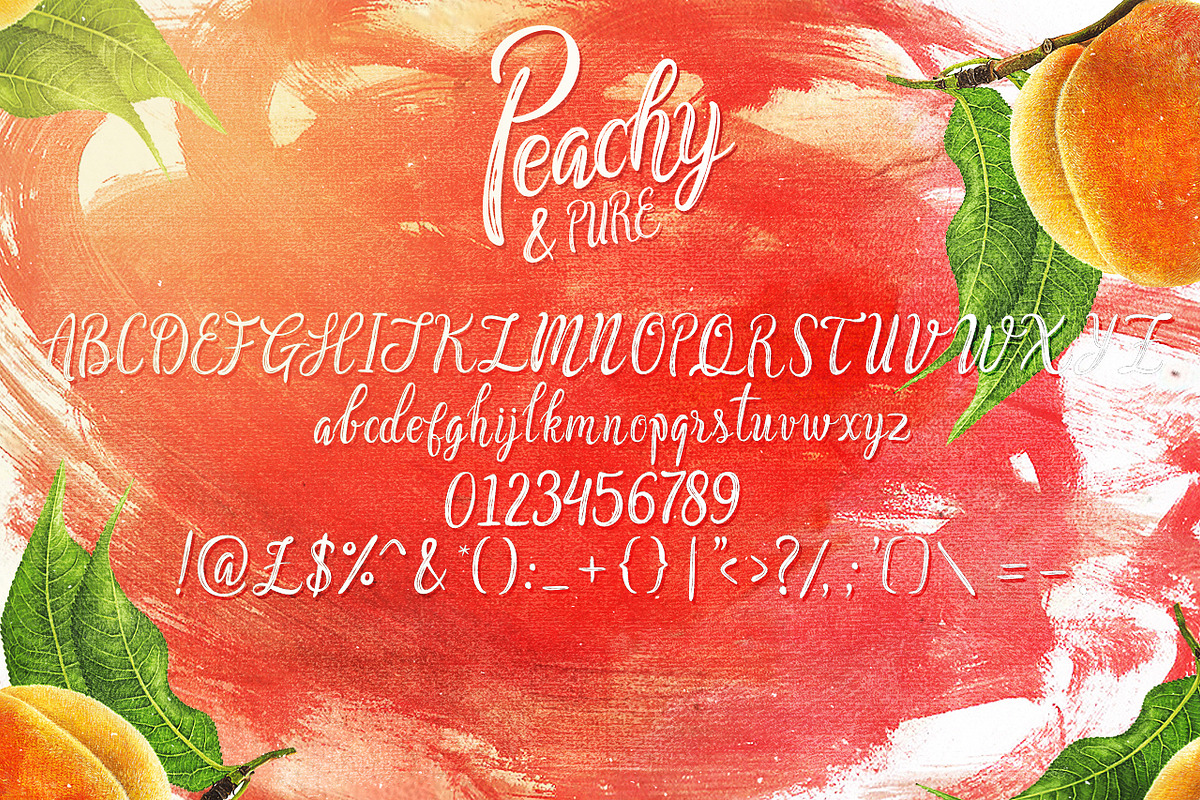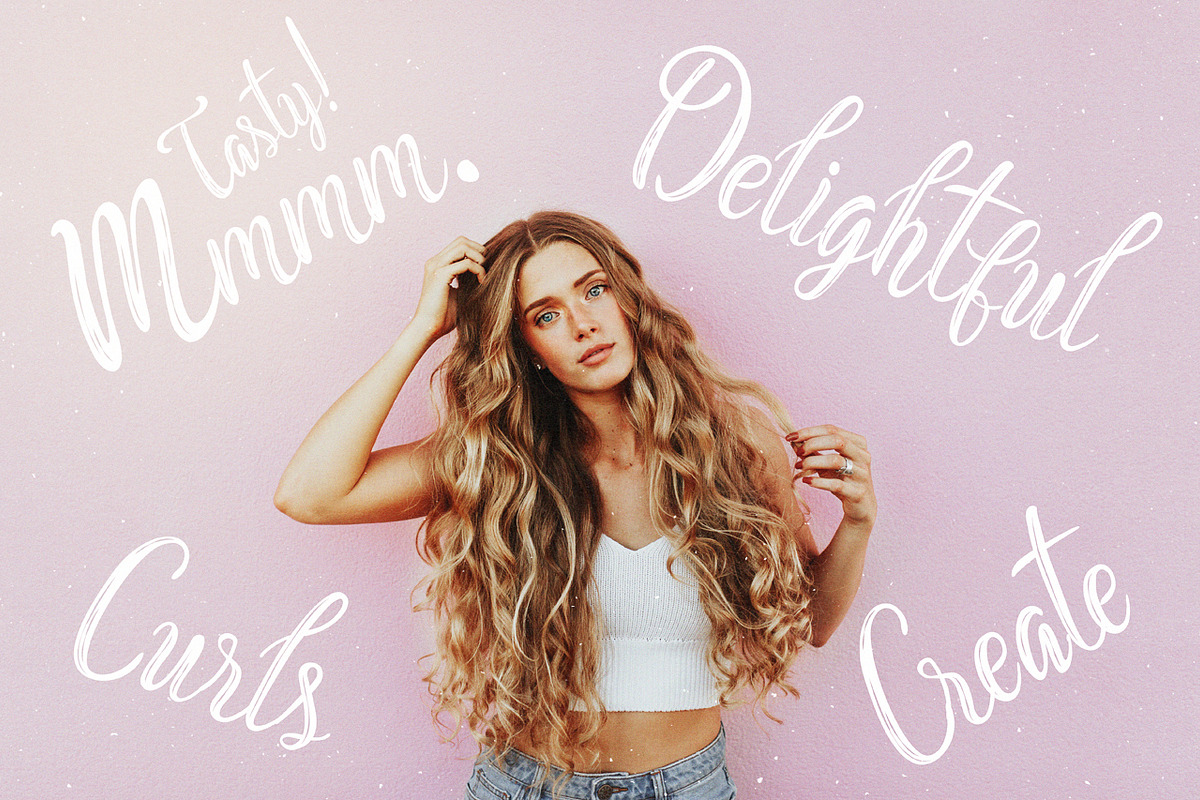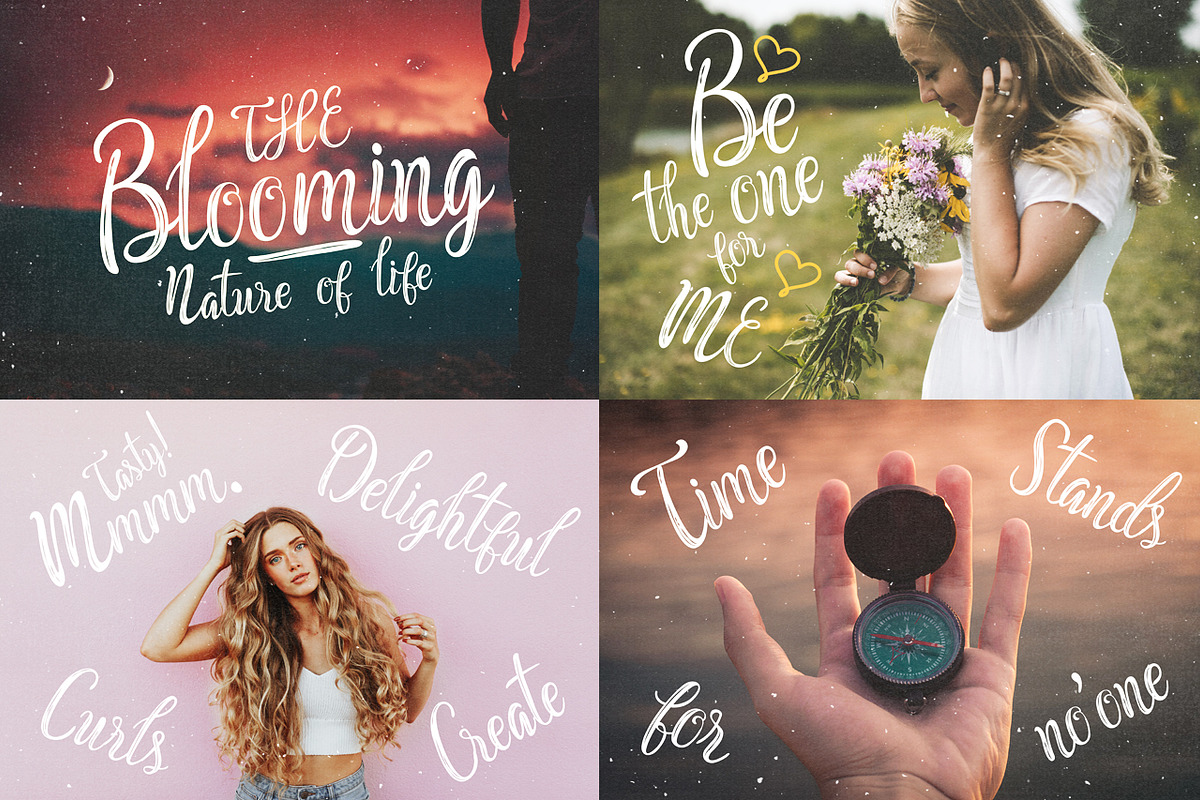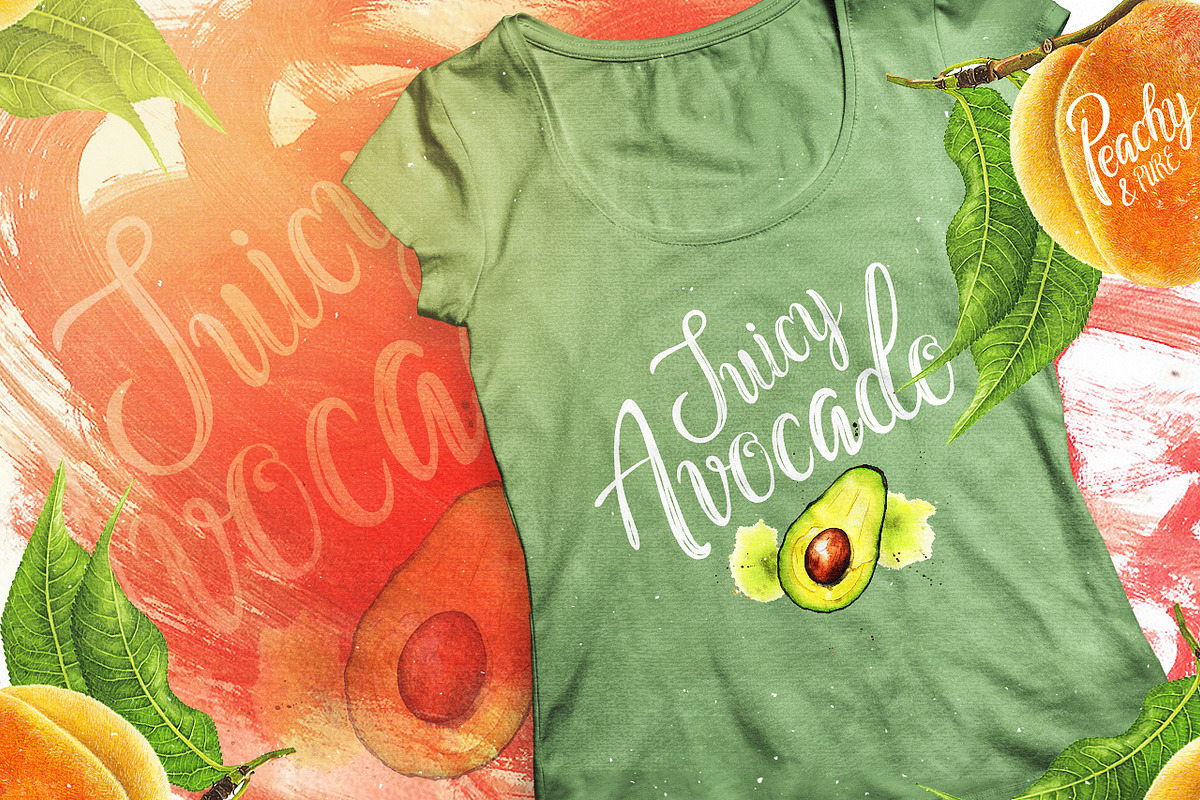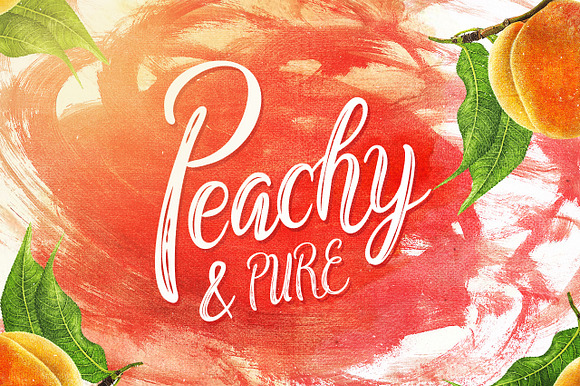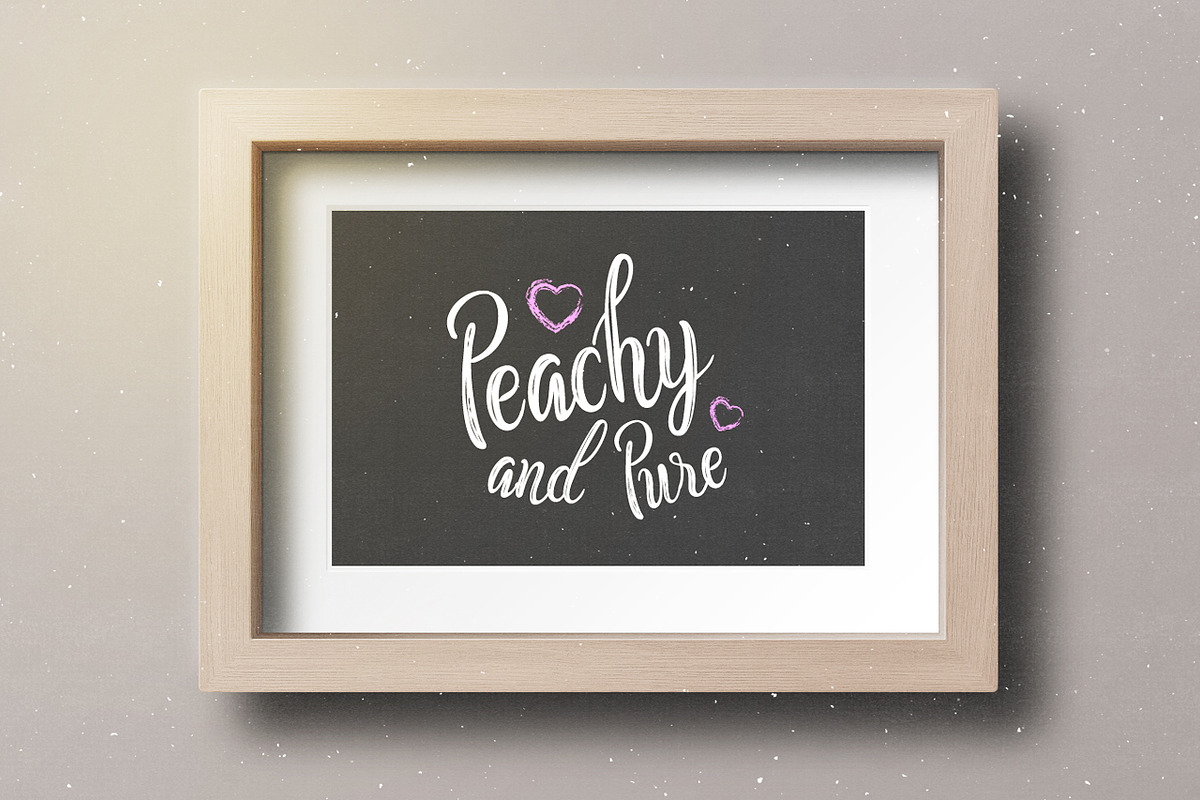
Peachy & Pure - Typeface
Introducing Peachy & Pure - An utterly JUICY Typeface
Introducing Peachy & Pure, a delightfully handcrafted Script Typeface with oodles of character and charisma! Perfect for headline Typography pieces, digital and print artwork!